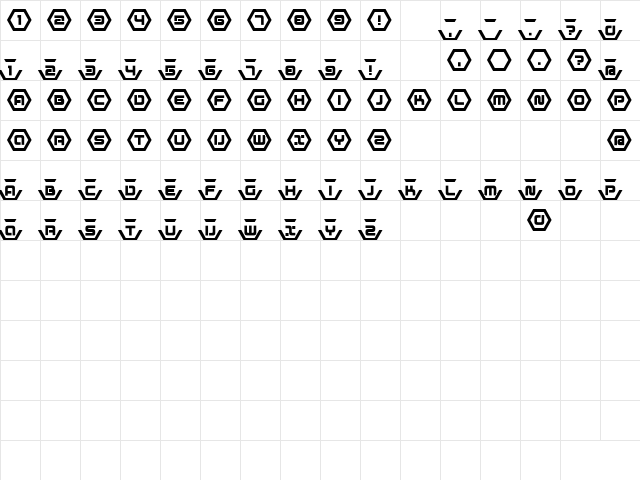
D3 Honeycombism Bold Regular
Design Context for D3 Honeycombism Bold Typeface
D3 Honeycombism Bold is a composed and adaptable typeface that performs quietly and consistently across a wide range of design contexts. Its bold stroke weight gives it real presence on the page.